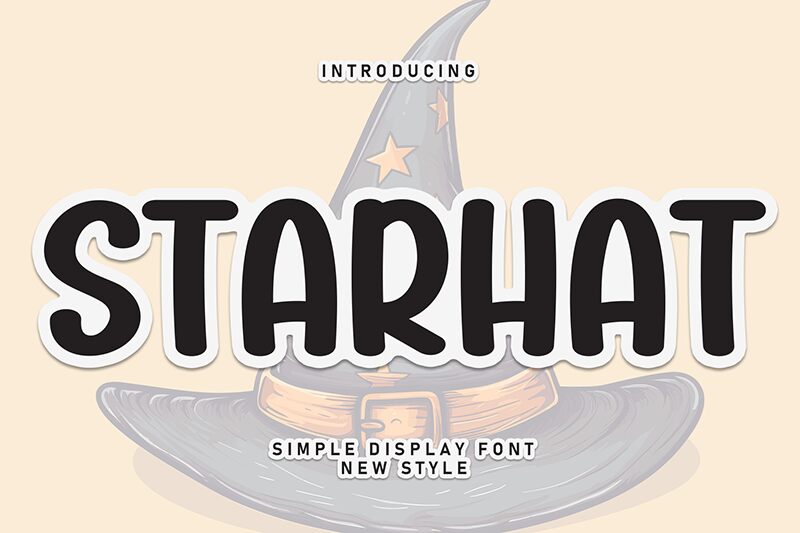
Starhat
Starhat font designed by Scratchones is a rounded contemporary handwritten font with a casual vibe. Its friendly letters appear approachable and modern where all textual presentations are easy to read and digest. Relaxed or informal products can be advertised using the uniform words this typeface creates which alone speaks of quality, elegance, and style.
Many applications for the use of Starhat in branding projects come to mind: logos, packages, labels, posters, news headlines, magazines texts/titles, brochures layout/covers… online it performs great on websites (blogs) layouts/headers/titles as well as on social media banners/posts graphics.